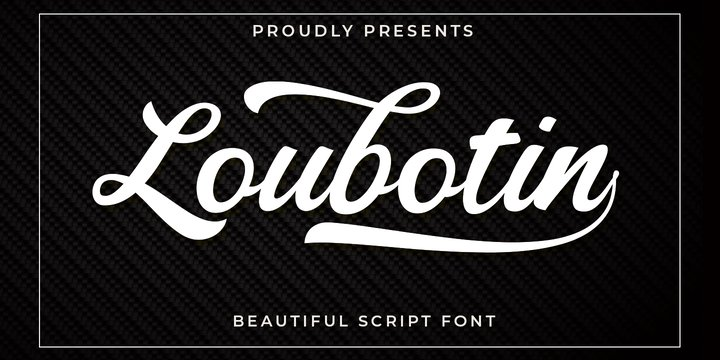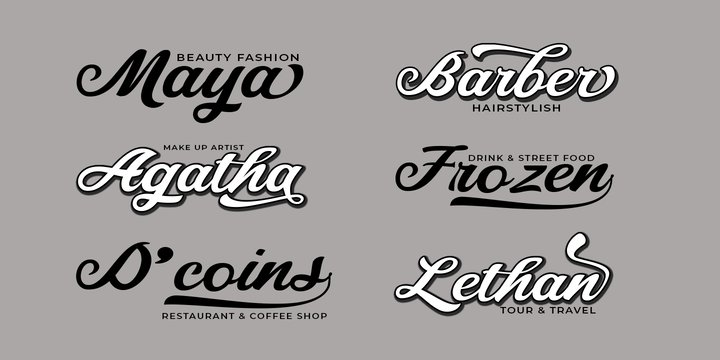
Loubotin Font
Loubotin FontLoubotin Inspired by Modern Vintage & Retro style and combination with old american traditional style.Loubotin allowing you to create hand lettering is an instant and a super handy set of bonus Swash. Ideal for logos, handwritten quotes, product packaging, header, poster, merchandise, social media & greeting cards.